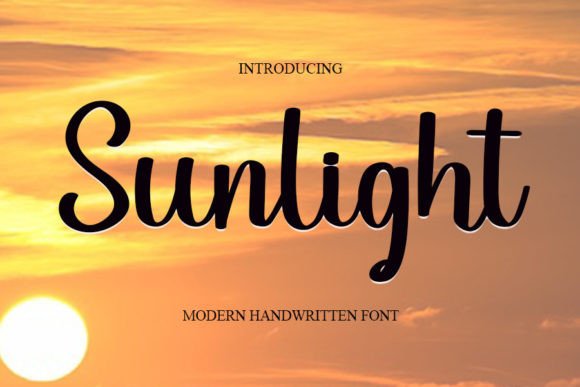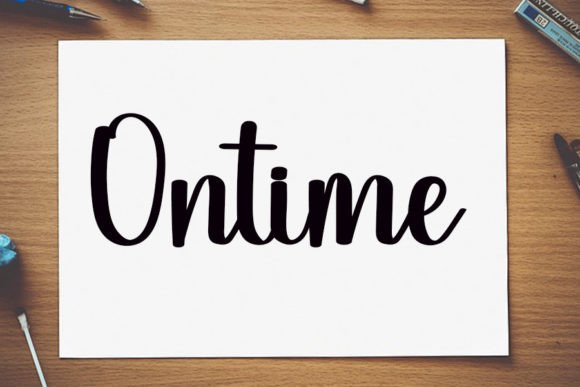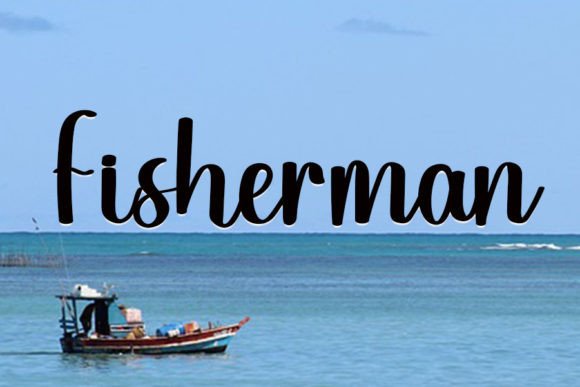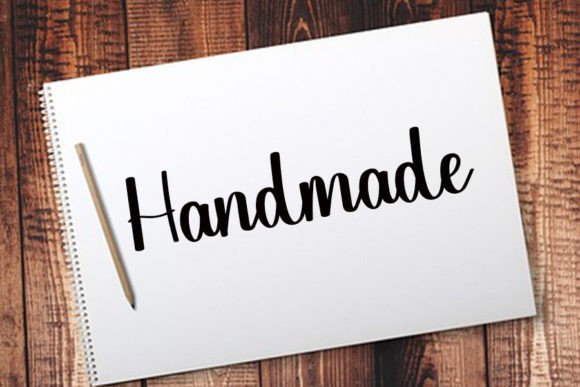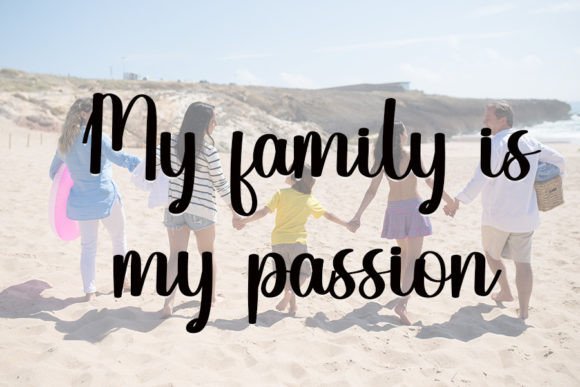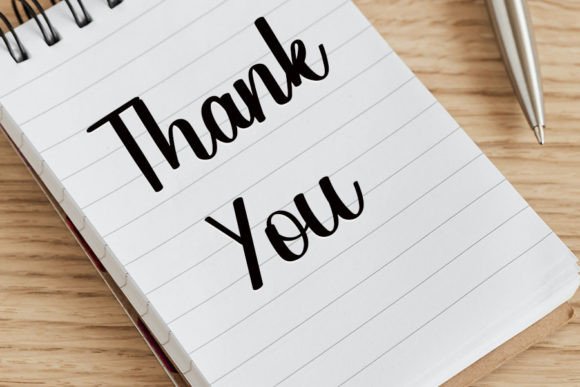
Sunlight Font
Add Charm and Balance with Sunlight Font
Sunlight Font is a cute and charming handwritten typeface designed to bring balance and beauty to your creative projects. Neither too thin nor too thick, this font offers a well-rounded style that fits perfectly in many design settings. Whether you are creating invitations, branding materials, or social media graphics, Sunlight Font enhances your work with its friendly and appealing look.
Moreover, its varied strokes and natural flow make your designs feel warm and inviting.
Versatile Uses for Sunlight Font
Sunlight Font is suitable for a wide range of projects, including:
• Wedding and event invitations
• Brand logos and corporate identities
• Social media posts and digital content
• Posters, flyers, and promotional materials
• Product packaging and labels
Thanks to its balanced and charming handwritten style, SunlightFont adds personality and elegance to your designs.
It also features clear kerning and well-spaced letters to keep your text readable and attractive at different sizes and formats.
Why Designers Choose Sunlight Font
Designers and creatives appreciate SunlightFont for its perfect balance of cuteness and charm. It adds a personal and professional touch that makes any project look polished and memorable. Whether you’re a beginner or an expert, SunlightFont helps your work shine with warmth and style.
Use SunlightFont to bring a friendly and balanced feel to your next creative project.